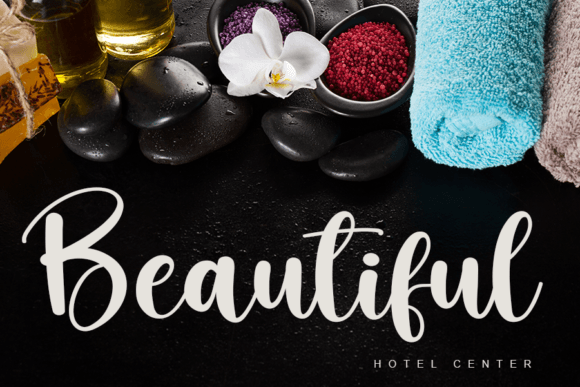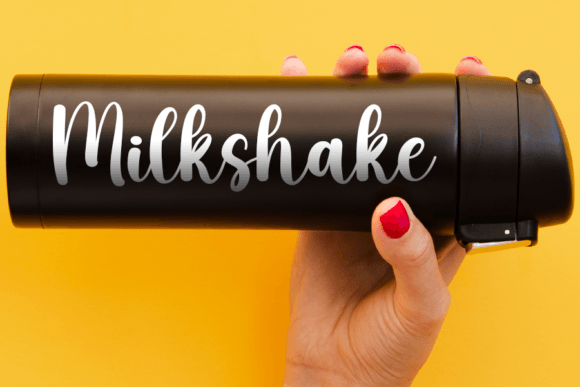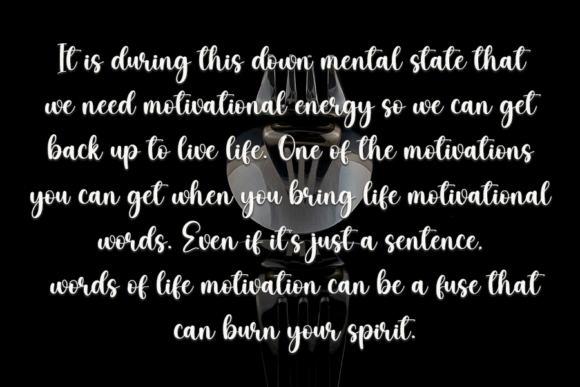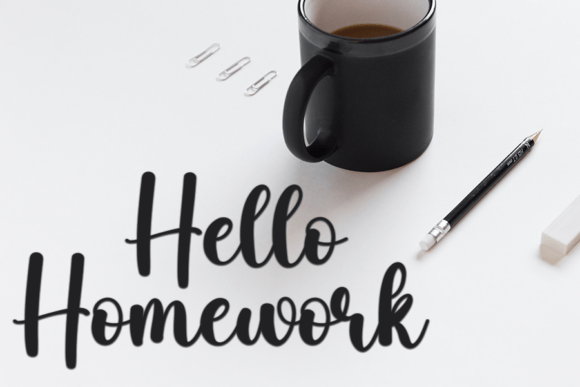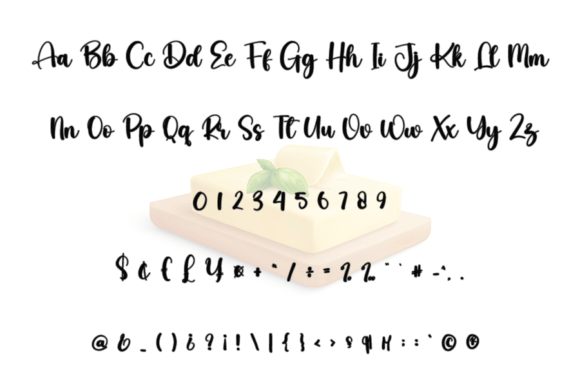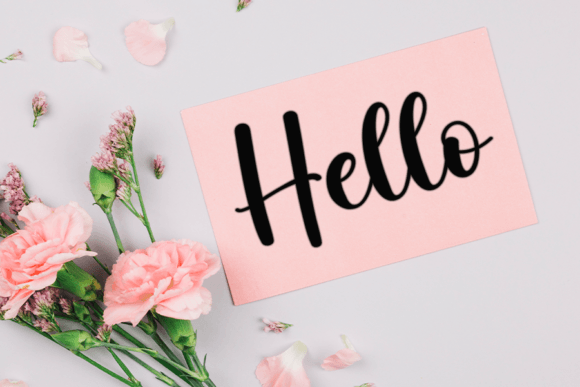
Introducing Butter Font: Elevate Your Designs with Timeless Elegance
Are you on the hunt for a font that exudes sophistication, elegance, and a touch of modern flair? Look no further than Butter Font, a stylish handwritten typeface that is sure to elevate your designs to new heights. Inspired by the timeless classics of calligraphy, Butter Font brings a contemporary atmosphere to the table, making it the perfect addition to any project that demands impeccable form and beauty.
The Story Behind Butter Font
Butter Font is the brainchild of talented designers who sought to create a typeface that would marry the elegance of traditional calligraphy with the modern sensibilities of contemporary design. The result is a font that is not only balanced and varied but also incredibly versatile, making it suitable for a wide range of applications, from luxury branding and advertising to packaging and digital media.
Key Features of Butter Font
• Contemporary yet Classic: Butter Font strikes the perfect balance between modern flair and timeless elegance, making it an excellent choice for designers who want to create works that are both current and enduring.
• Handwritten with Precision: The font’s handwritten nature gives it a personal and approachable feel, while its precise construction ensures that it remains legible and professional.
• Varied and Balanced: With a range of weights and styles, Butter Font offers the flexibility to adapt to different design needs, ensuring that your projects always look their best.
• Impeccable Form: Every letterform in Butter Font has been meticulously crafted to contribute to the overall beauty and coherence of the font, making it a joy to use in any design.
Why Choose Butter Font?
In a world where fonts are plentiful and design trends come and go, Butter Font stands out for its unique blend of classic inspiration and modern appeal. Here are just a few reasons why designers and crafters are falling in love with this versatile typeface:
• Enhances Project Beauty: Whether you’re working on a branding campaign, a website, or a craft project, Butter Font is designed to add a touch of elegance and sophistication.
• Versatile Application: From headings and titles to body text, Butter Font’s adaptability makes it suitable for a variety of design applications.
• Easy to Read: Despite its elegant and cursive nature, Butter Font remains highly legible, ensuring that your message is communicated clearly and effectively.
• Unique yet Timeless: Unlike trend-specific fonts that may quickly become outdated, Butter Font’s classic inspiration ensures it will remain stylish for years to come.
Using Butter Font in Your Designs
Butter Font is more than just a typeface; it’s a design tool that can transform your projects with its elegant, contemporary charm. Whether you’re a professional designer or a crafting enthusiast, this stylish handwritten font offers the perfect blend of classic inspiration and modern appeal. With its impeccable form, versatility, and timeless beauty, Butter Font is poised to become a favorite in your design arsenal. So why wait? Discover the difference Butter Font can make in your designs today.